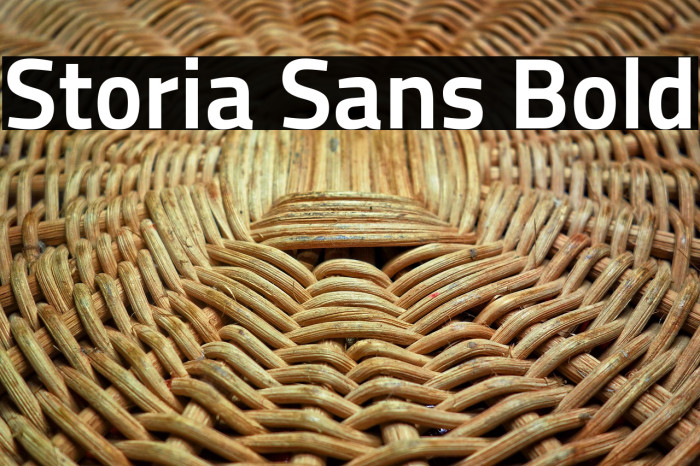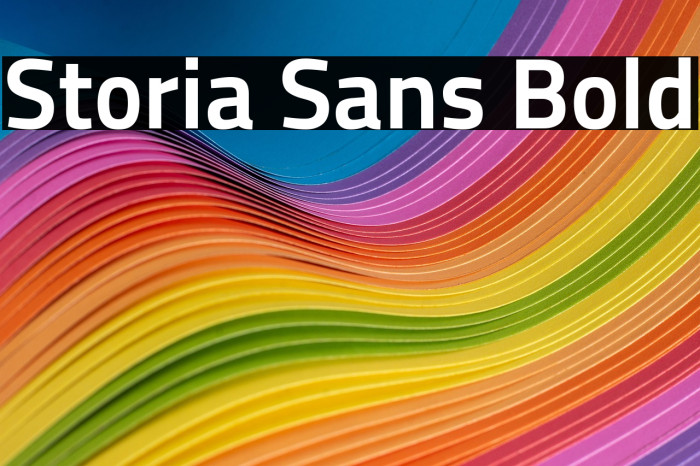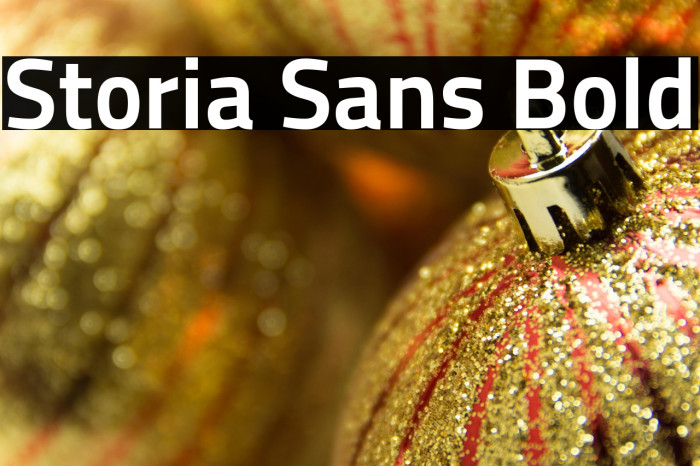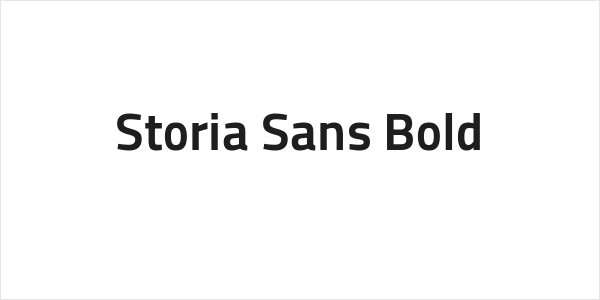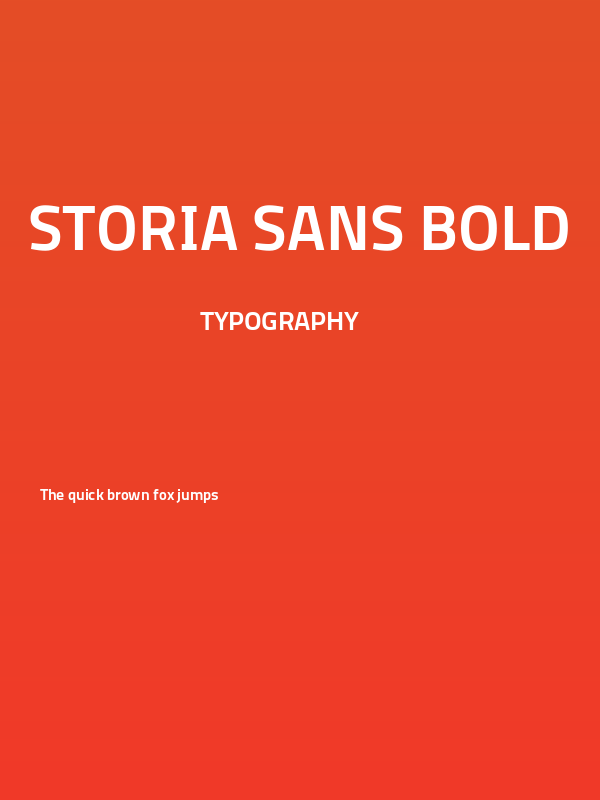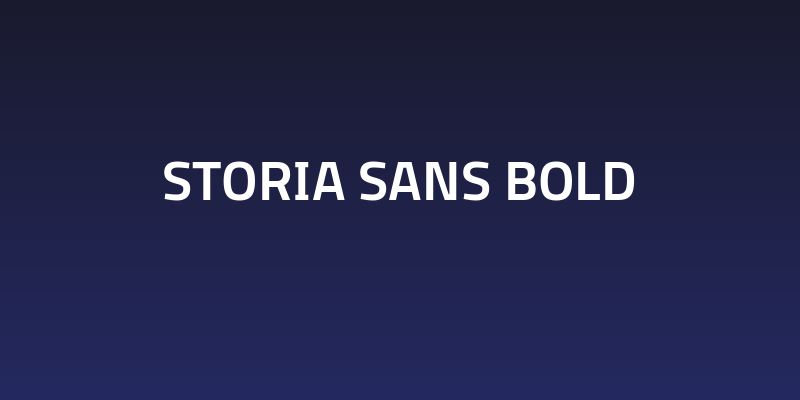
Storia Sans Bold Font
Storia Sans Bold Description
This font presents a clean and modern sans-serif style with bold strokes that convey strength and clarity. The characters are well-defined with a uniform stroke width, offering a balanced and harmonious appearance. The uppercase letters are slightly taller than the lowercase, providing a clear distinction between the two. The numerals are straightforward and align well with the overall geometric design of the font. Special characters are included, maintaining the same bold and clear aesthetic. This font is versatile, suitable for various design needs where readability and impact are essential.
Use CaseHeadlines, Logos, Digital interfaces
Proposed ProjectsIdeal for branding, advertising, headlines, and digital interfaces where clarity and impact are crucial.